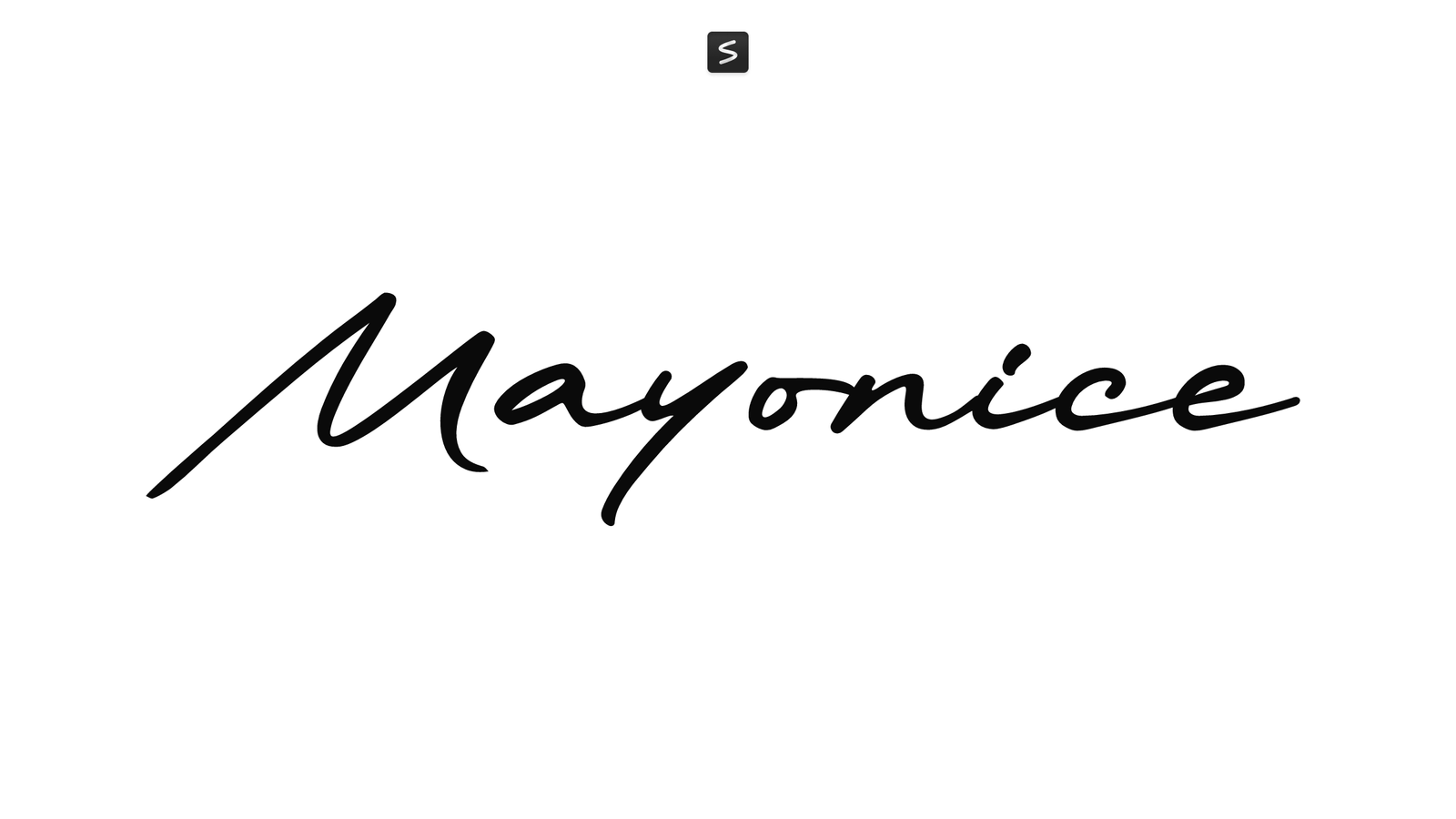
Mayonice is a flowing brush script designed by Khurasan™. Its letterforms feel natural and energetic, balancing elegance with an approachable, handwritten quality. The strokes have a genuine fluidity that reads warmly without sacrificing legibility across different sizes.
The font works well for projects that benefit from a personal, human touch: branding and logos, social media graphics, greeting cards, invitations, packaging, and book covers. It’s a solid choice when you want something that feels handmade but remains readable and professional.